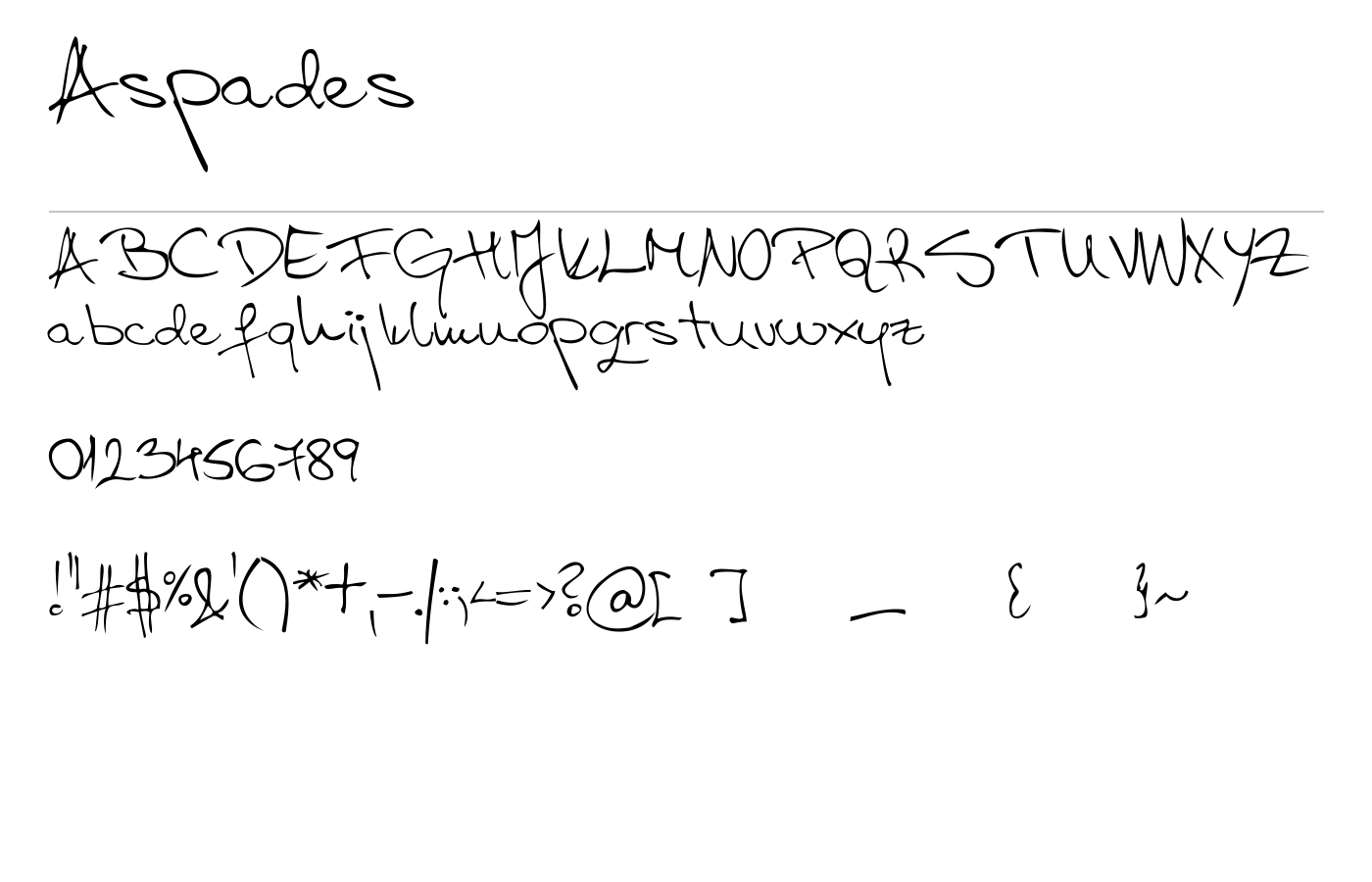
Aspades is a playful and casual handwritten font with a tall, narrow structure and lively, uneven strokes that give it a spontaneous, personal feel. Its thin lines and quirky letterforms make it ideal for creative projects, like greeting cards, informal branding, or quirky headlines where a unique, hand-drawn touch is desired. This font’s distinct personality works well to add charm and individuality to designs needing a warm, approachable vibe.
Aspades Font
About Aspades Font